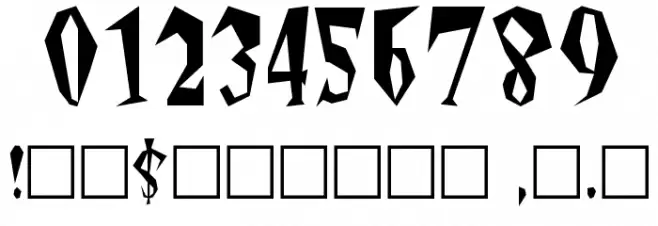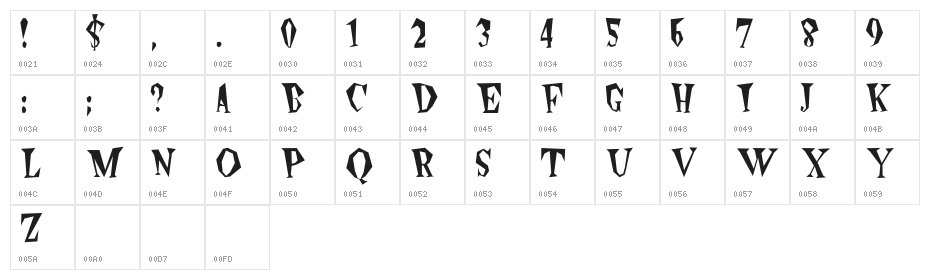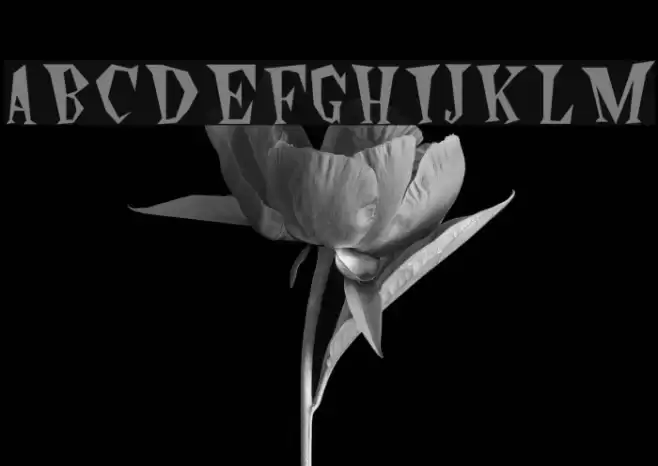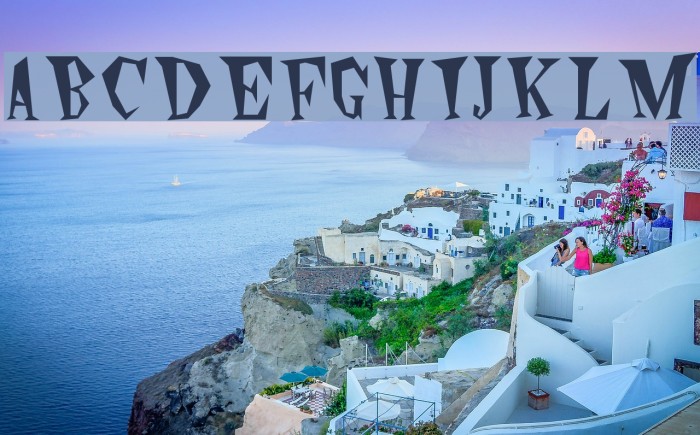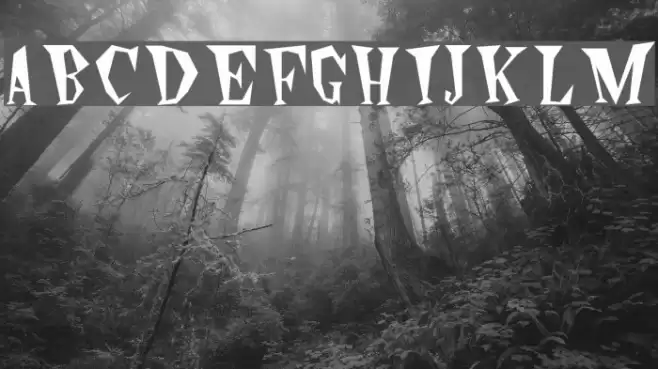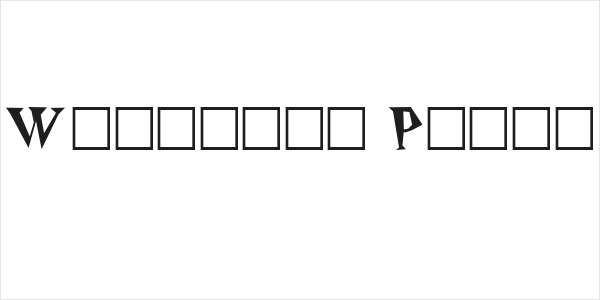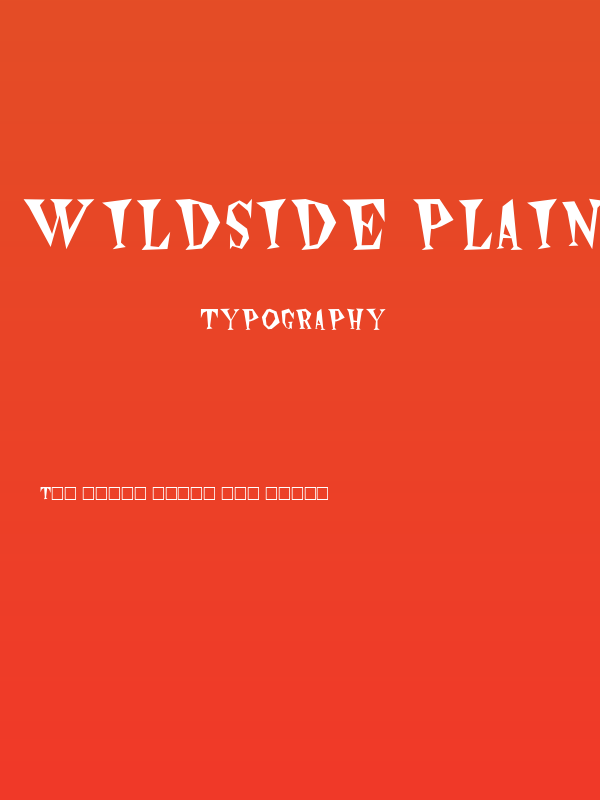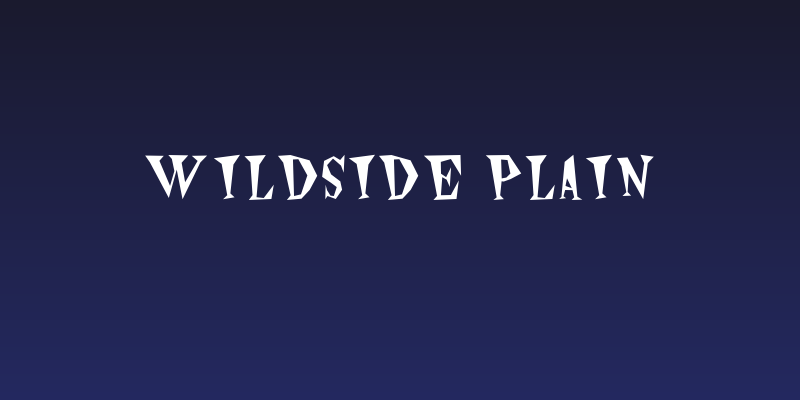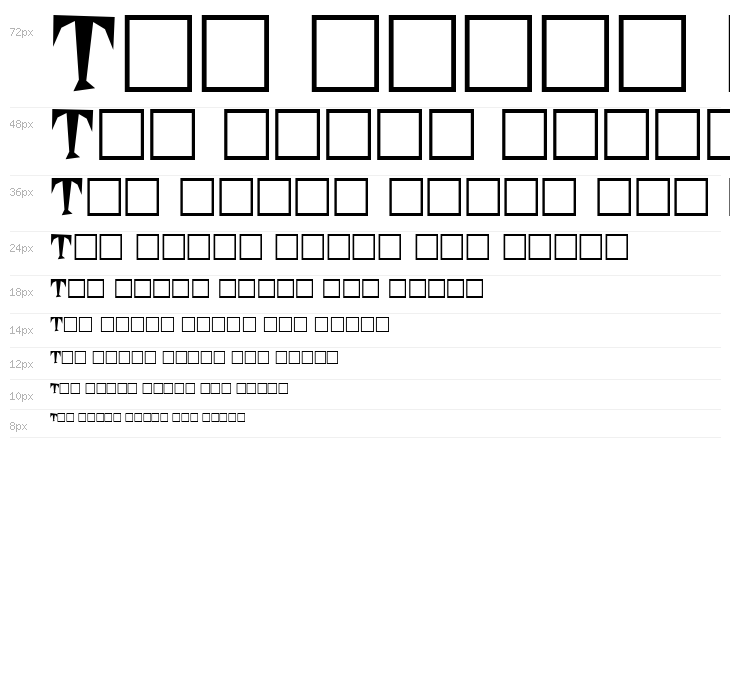
Wildside Plain Font
Wildside Plain Description
This font features a bold and edgy design with sharp, angular lines and a slightly distressed appearance. The uppercase letters are particularly striking, with each character exhibiting unique cuts and angles that give it a rebellious and dynamic feel. The numbers follow a similar style, maintaining the bold and angular aesthetic. This font is well-suited for projects that require a strong, eye-catching display typeface. Its distinctive style makes it ideal for use in posters, album covers, or any design that seeks to convey a sense of boldness and individuality.
| Proposed Projects | Ideal for posters, album covers, and designs needing a bold, eye-catching typeface. |